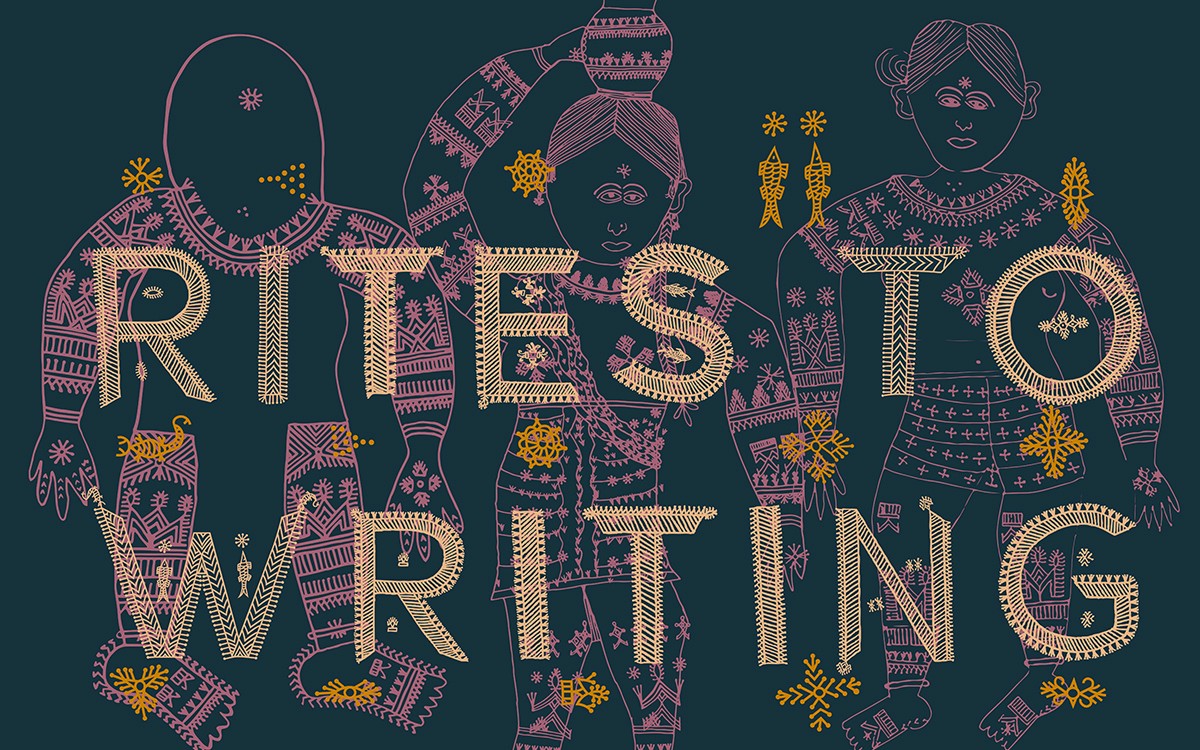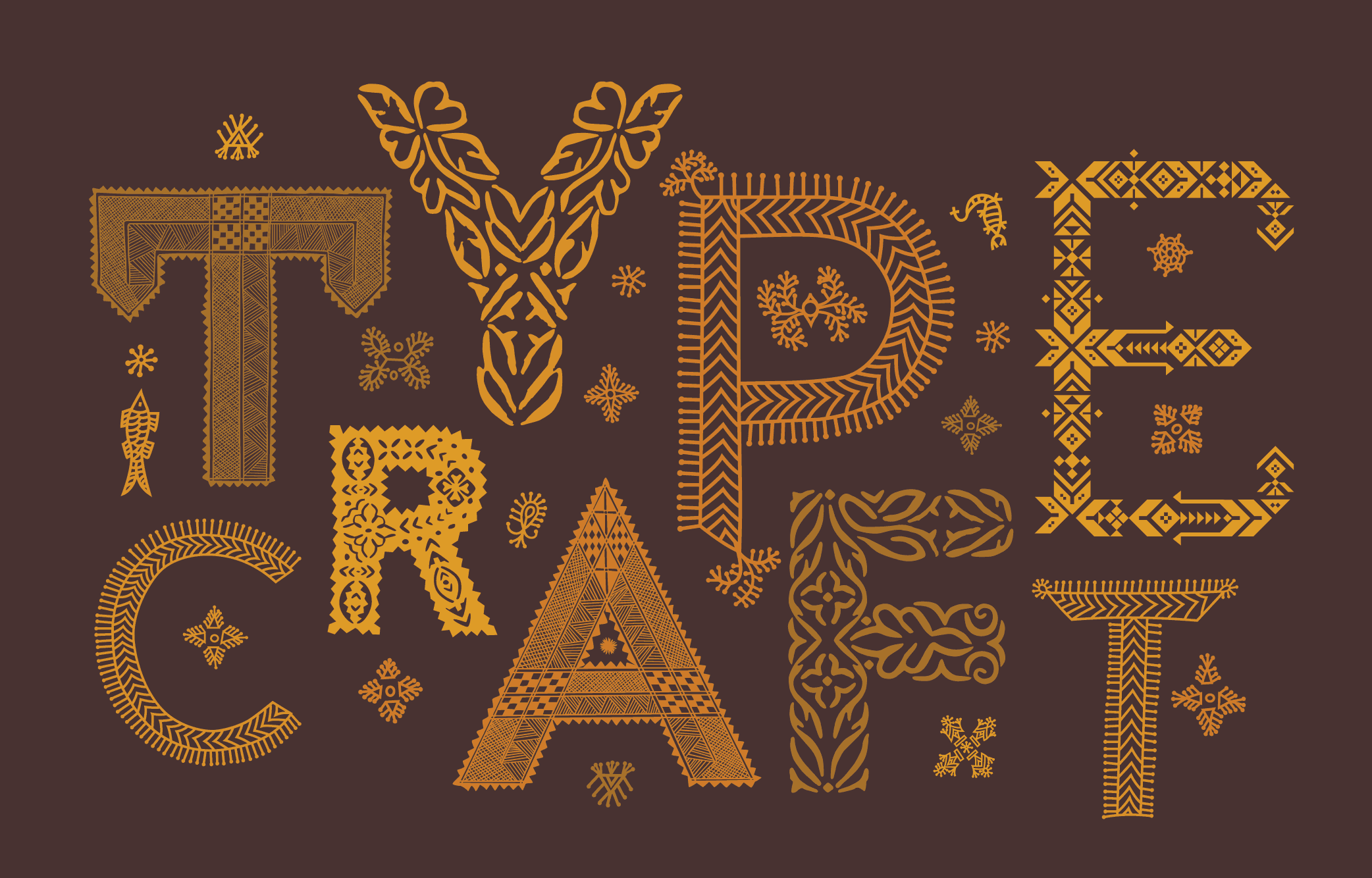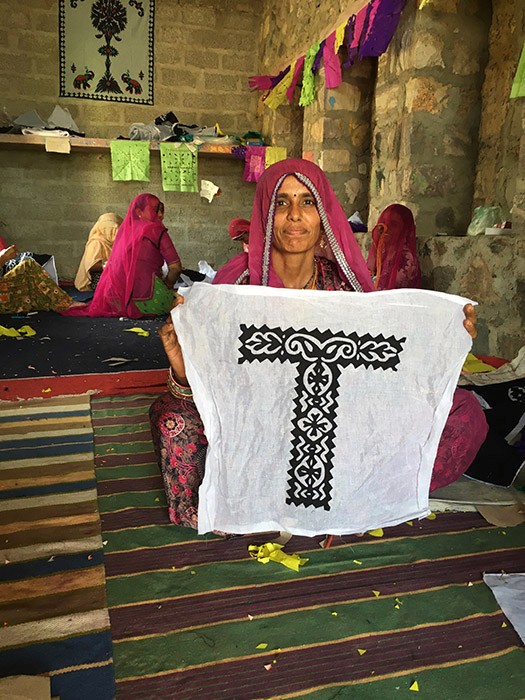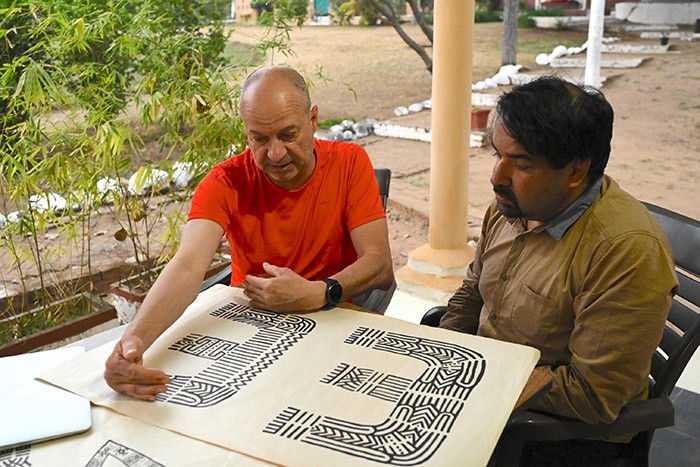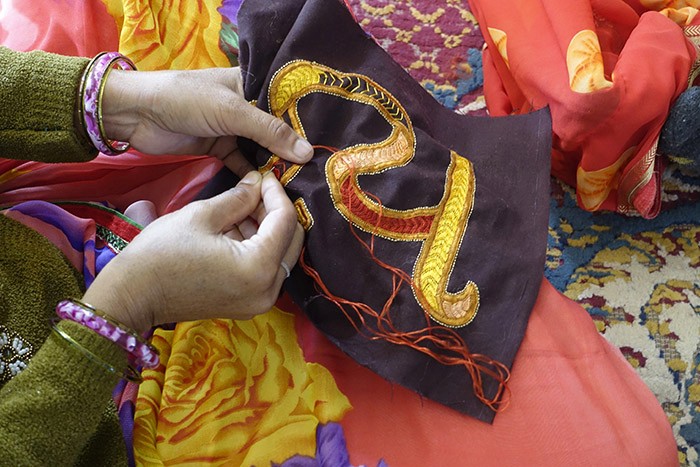
a group of people holding up Indian handcrafted lettering
Ishan Kholsa Makes India's Crafts Into Today's Fonts
For Ishan Khosla (MFAD 05) the impetus to start Typecraft came about after he moved back to India in 2008, following a 13-year stay in the United States. He noticed mainstream graphic design in India looked, “or tried to look,” like design in the U.S. or Europe, and felt designers in India who were trained in a Eurocentric methodology had completely turned away from the depth of visual languages and cultural heritage of South Asia.
The Typecraft Initiative Trust launched in 2011 to engender avenues for greater exchange between urban graphic designers and rural craftspeople. It started as a way to celebrate the rich handmade crafts (and tribal arts) of South Asia in the digital avatar of a typeface.
Khosla—an MFA grad whose thesis involved the creation of a new design school in India—talks here about Typecraft’s the interaction between craftspeople and type.
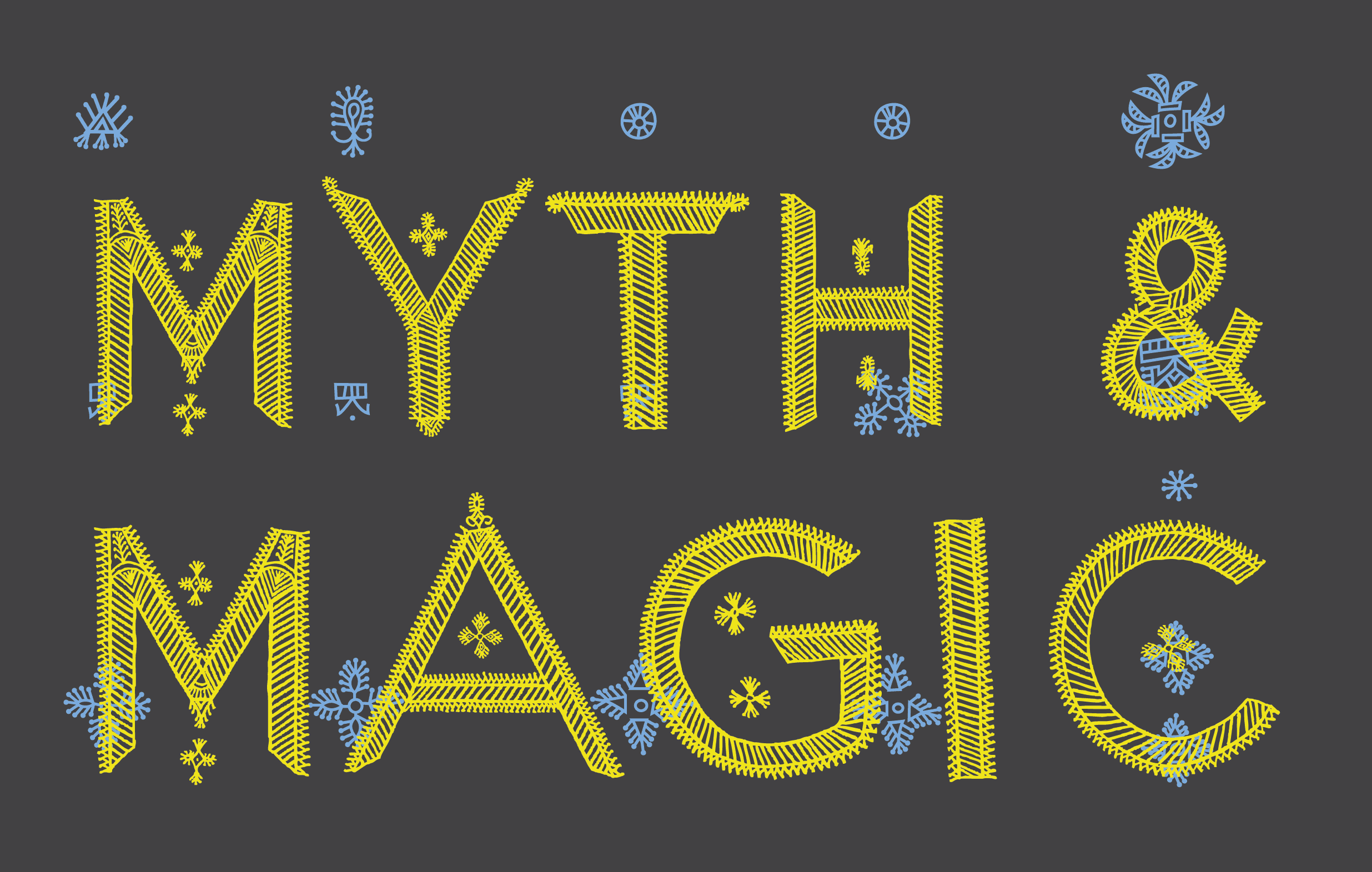
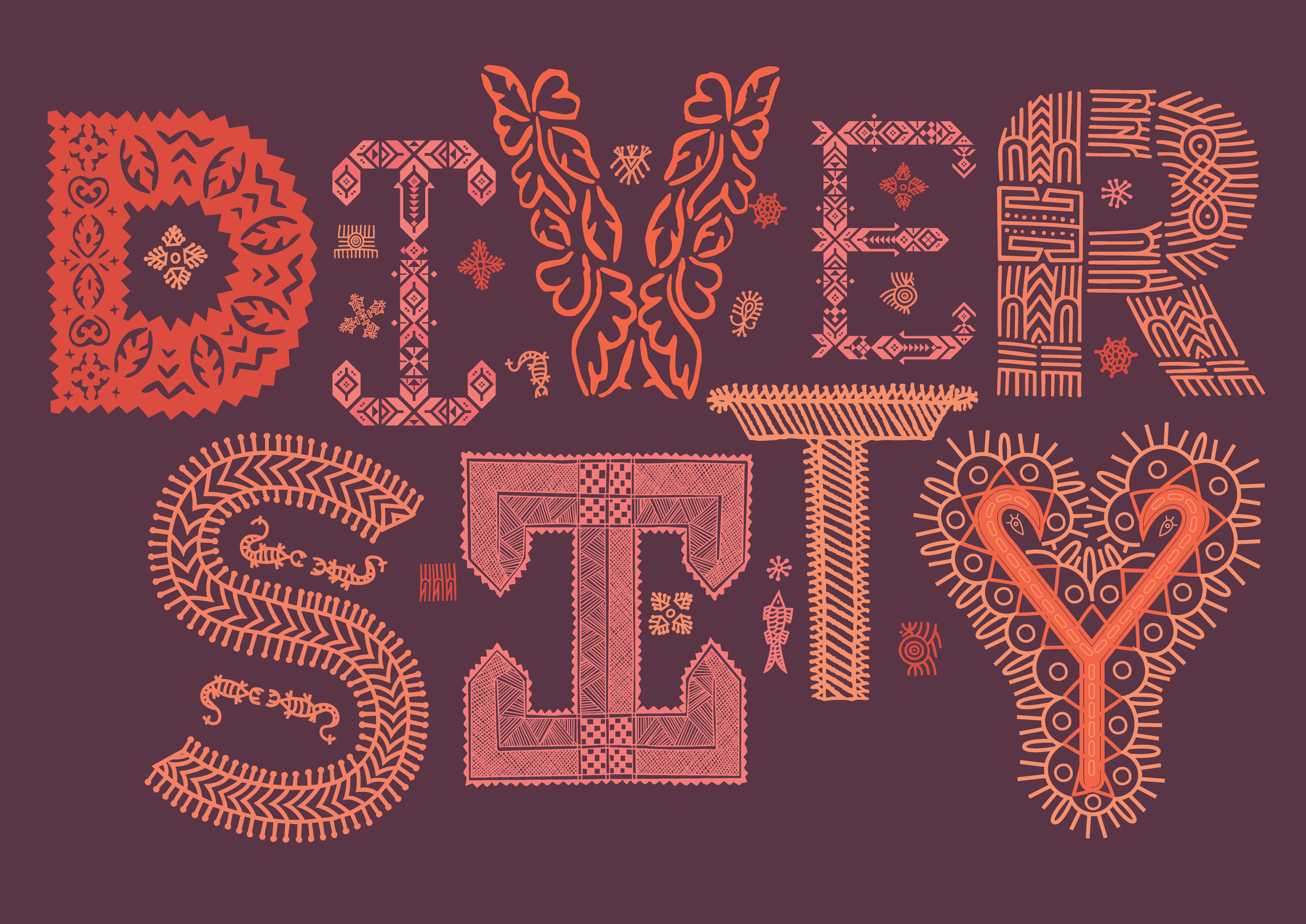Indian handcrafted lettering
Indian handcrafted lettering
a woman holding up Indian handcrafted lettering
two people discussing Indian handcrafted lettering
Indian handcrafted lettering